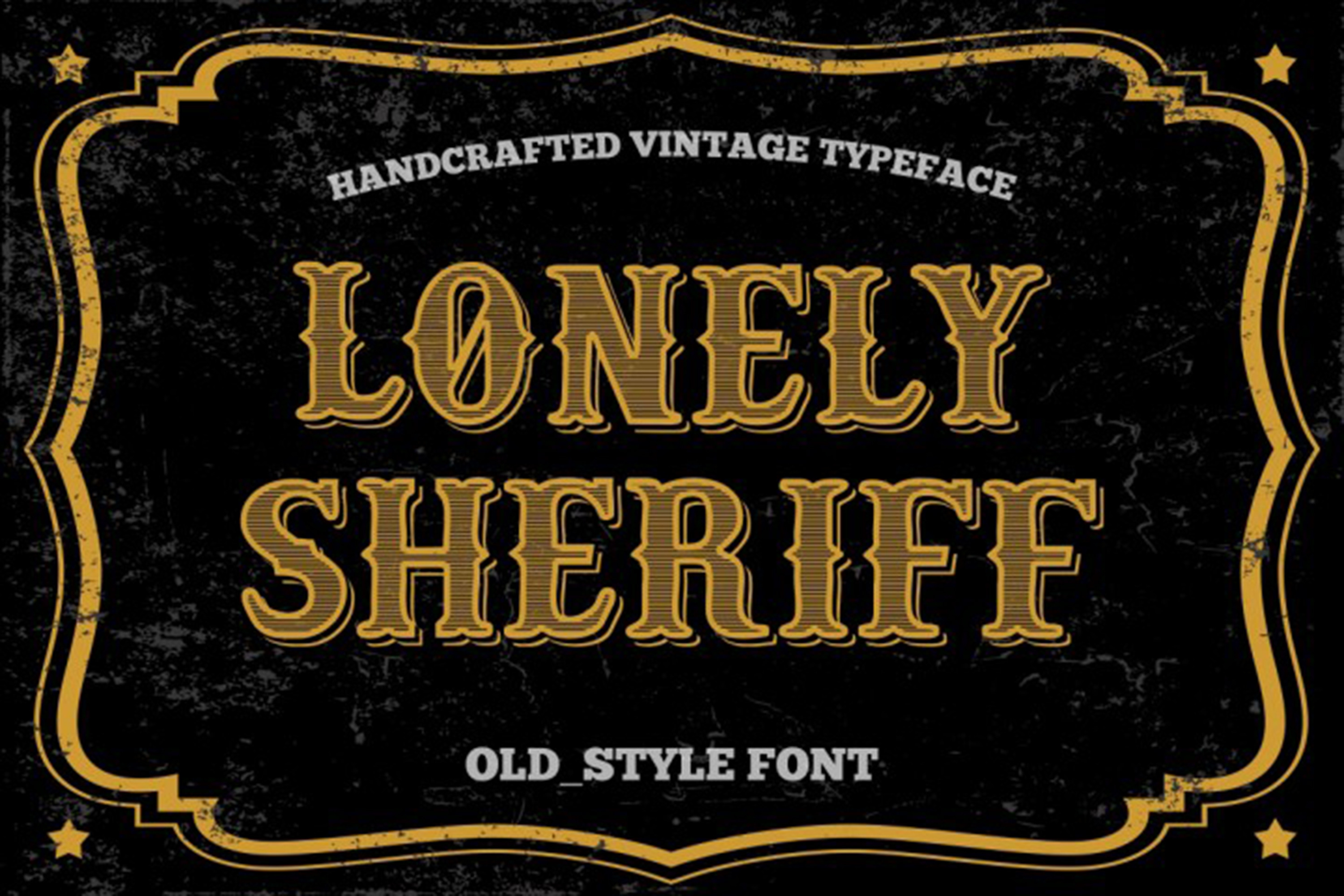
Old Style font - vintage typeface
Old Style font
vintage typeface
Lonely Sheriff covered Old Style - vintage typeface. The font you have downloaded is ideal for your design works in any type of context. It is basically mixture of standard font family types with modern design ideas used in many industries. Handcrafted by professional designers this attractive font is highly visible on any poster or postcard, or invitation letter heading.